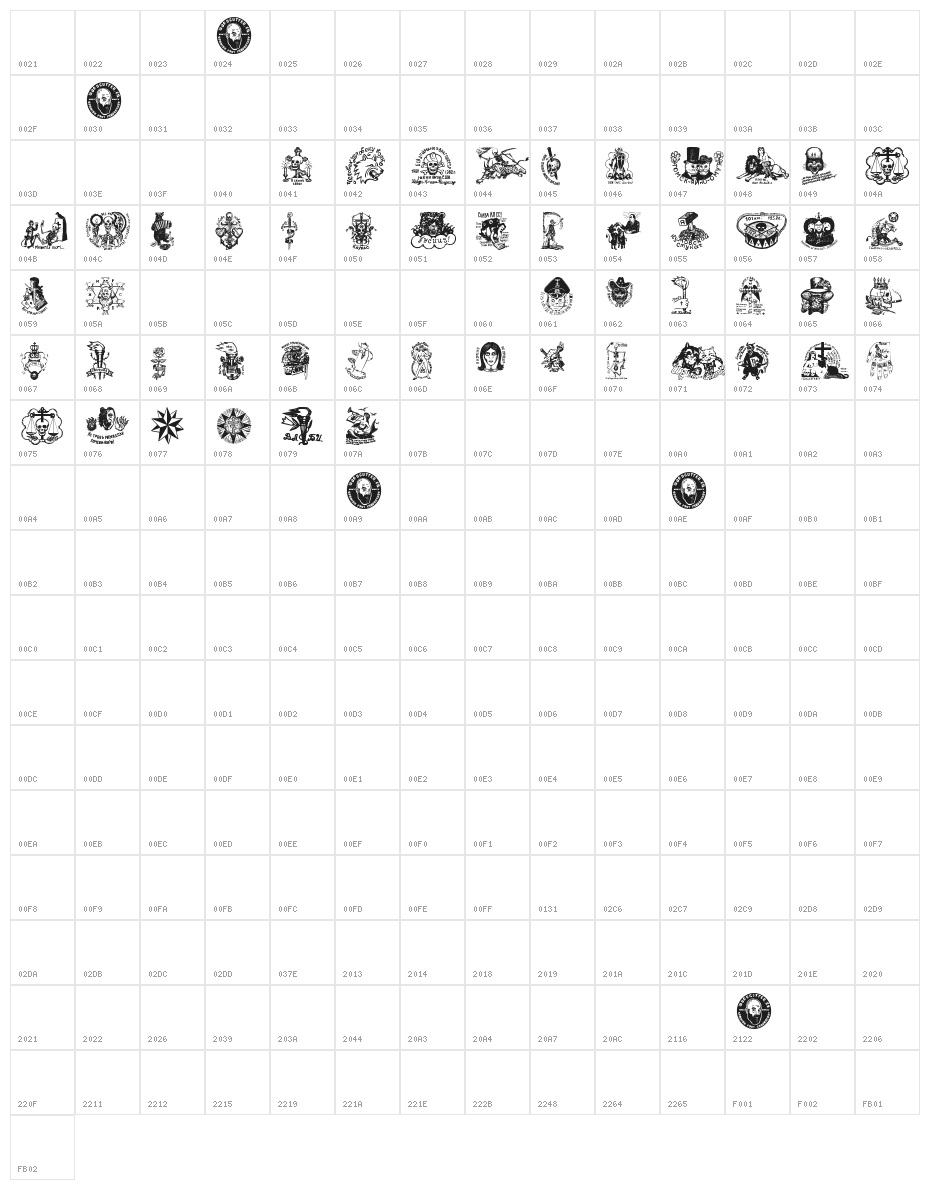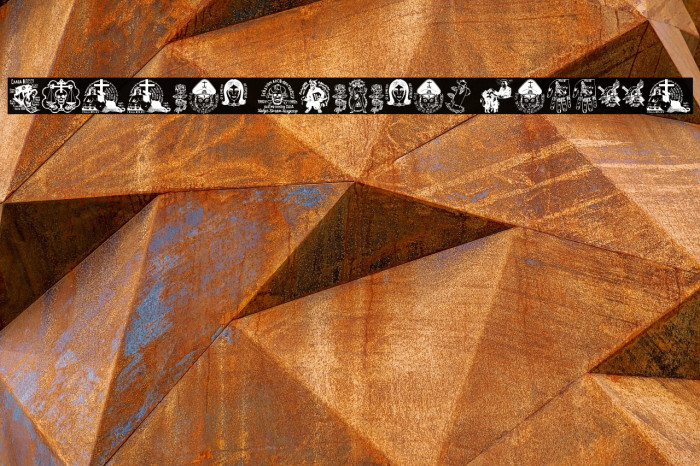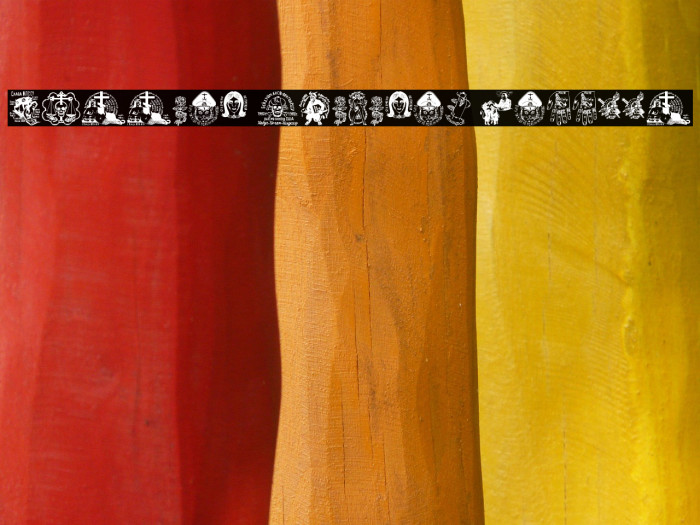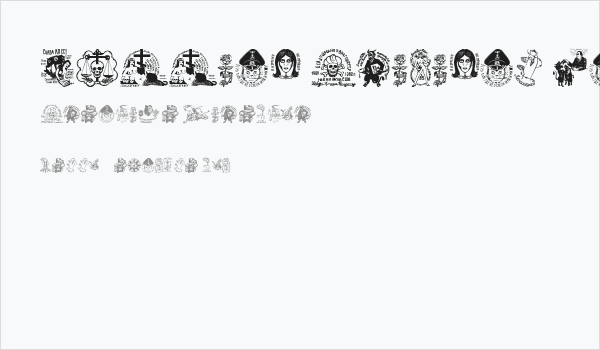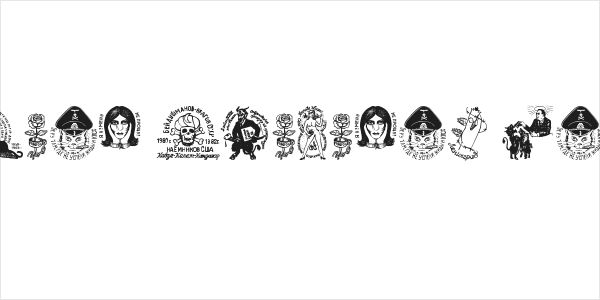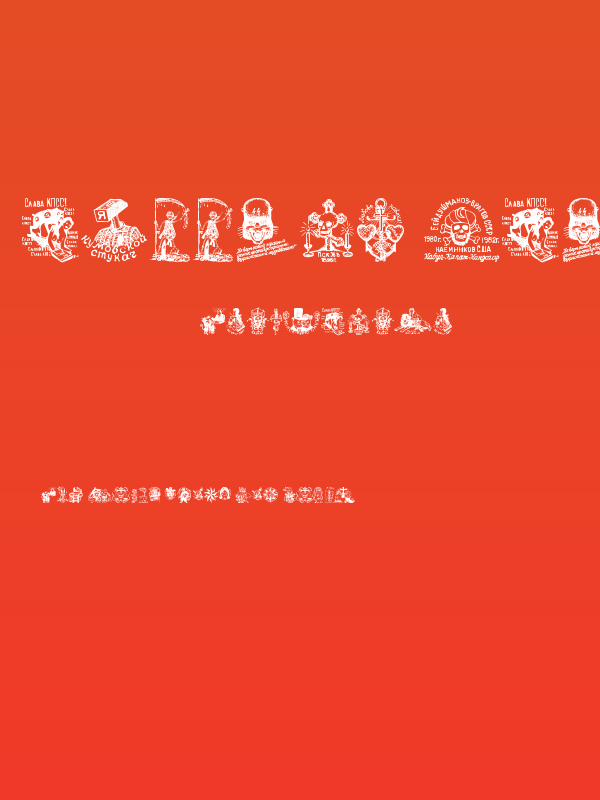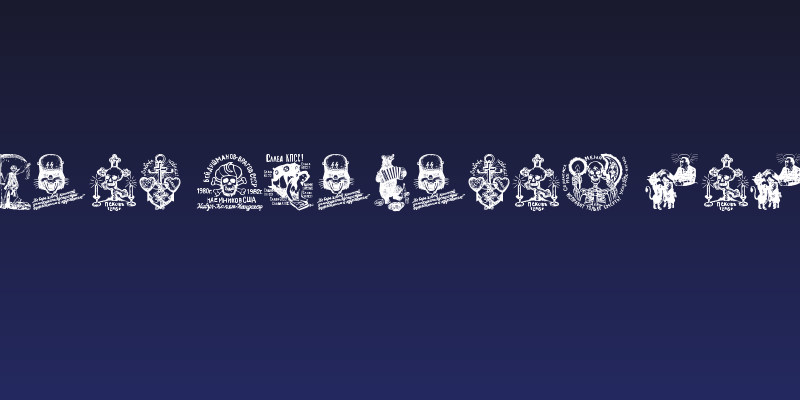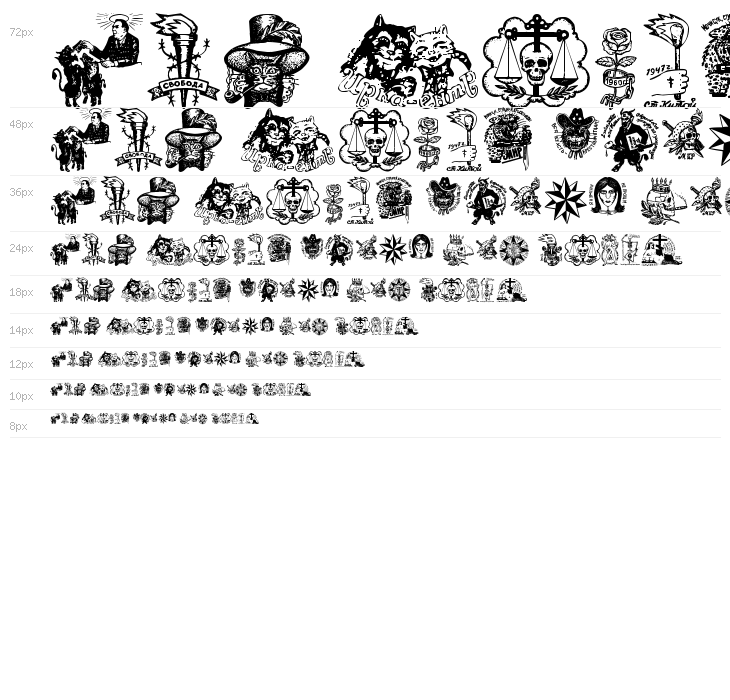
Russian Criminal Tattoos Font
Russian Criminal Tattoos Description
This collection features a series of intricate and detailed designs inspired by Russian criminal tattoos. Each design is rich in symbolism, often depicting elements such as skulls, daggers, and religious icons, which are traditionally associated with the Russian underworld. The artwork is highly detailed, with a hand-drawn aesthetic that captures the raw and gritty essence of these tattoos. The designs vary in complexity, from simple line drawings to more elaborate compositions, often incorporating text in Cyrillic script. The overall style is bold and striking, with a strong emphasis on black ink and high contrast, making each piece stand out vividly.
| Use Case | Logos, Illustrations, Thematic Art |
| Proposed Projects | These designs are ideal for use in graphic novels, tattoo-inspired art projects, clothing lines, or as thematic elements in film and media productions that explore crime or underground cultures. |